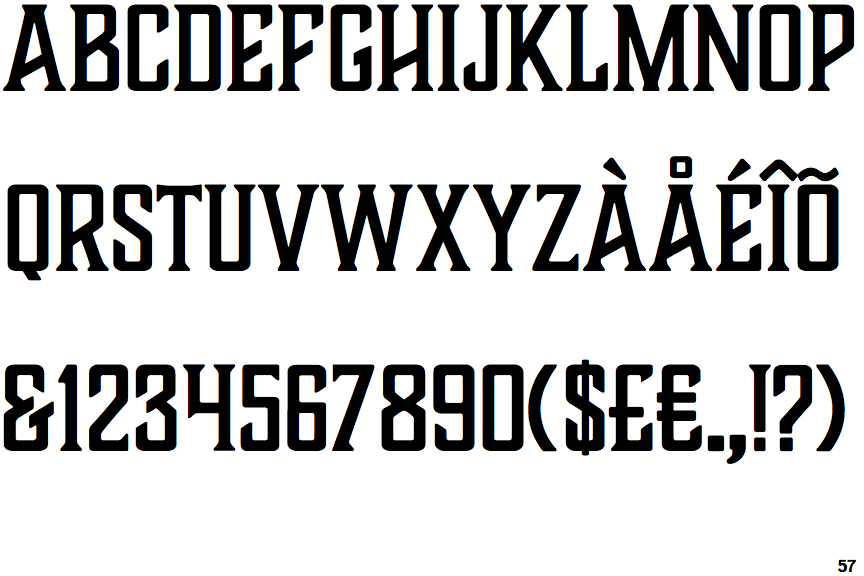
Review Of Boucherie Block Regular Font Free Download 2022
Review Of Boucherie Block Regular Font Free Download 2022. Web boucherie is not a free font. Adaptation of the lost letraset font of the.
Fonts are available in truetype, opentype and web type formats. Boucherie font family by laura worthington is a charming retro typeface, the smooth sister of the notorious charcuterie font. Boucherie block regular by laura worthington similar free fonts for boucherie block regular boucherie.
Web Use Boucherie To Create Typographic Compositions That Are At Once Fresh And Familiar.
Adaptation of the lost letraset font of the. Web boucherie block volume font the founder: Similar free fonts for boucherie block bold see the font with your own custom text set custom text download font.
Web boucherie block w01 regular 1.00 fonts free download. Fonts are available in truetype, opentype and web type formats. Boucherie font family by laura worthington is a charming retro typeface, the smooth sister of the notorious charcuterie font.
Boucherie contains 18 styles and family package options. Laura worthington creator of the design: We love high quality free fonts and we like to share them.
This typeface has four styles and was published by laura worthington. Set it large and tight for searingly effective headlines. Web regular laura worthington 190.18 kb blockt packages blockt style regular version 1.00 august 28, 2014, initial release copyright typeface jeff bensch.